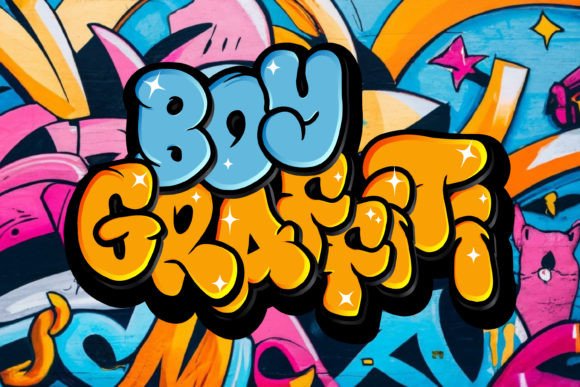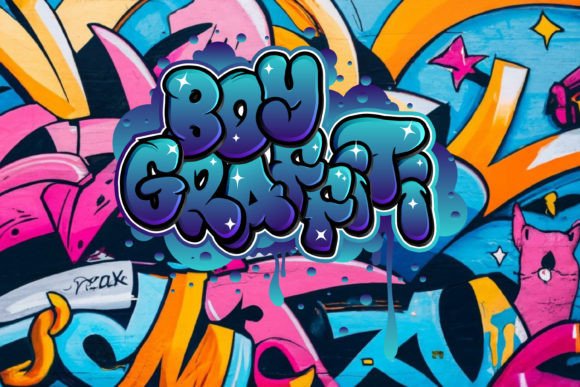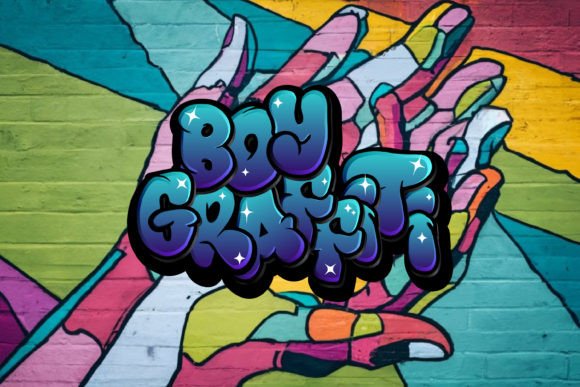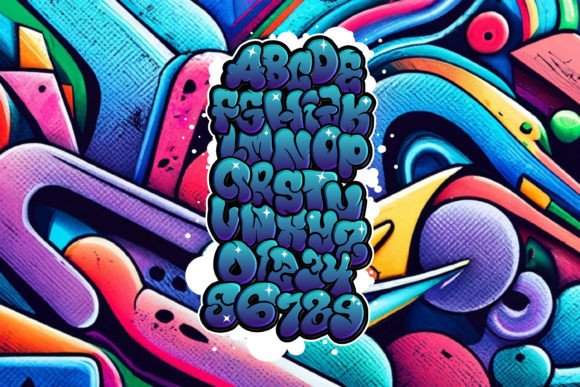
Boy Graffiti Font
About the Boy Graffiti Font
Experience the unique personality of Boy Graffiti Font, a font designed for impact. Boy Graffiti Font – Discover the edgy and urban world of graffiti fonts.
Boy Graffiti Font is ideally suited for headlines, posters, and short impactful branding elements where its bold, rebellious personality shines. It adds an edgy, street-style aesthetic to logos, apparel designs, and short promotional materials. However, its highly stylized nature makes it unsuitable for body text or UI applications requiring high readability. Longform content will be difficult to read.
Pairing Boy Graffiti Font effectively requires considering its strong visual impact. A clean, minimalist sans-serif font like Helvetica or a geometric sans-serif would provide a strong contrast and enhance readability in supporting text. For a slightly softer contrast, a neutral serif like Garamond could be used for more formal elements.
The font’s core personality is undeniably bold and rebellious, conveying a sense of youthful energy and urban grit. This makes it particularly well-suited for brands targeting a younger demographic interested in street art, music, or skateboarding culture.
Boy Graffiti Font Usage Examples
Boy Graffiti Font Example